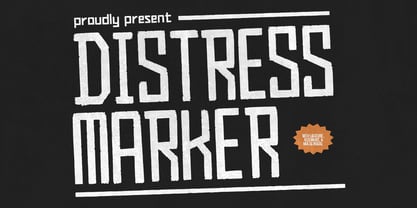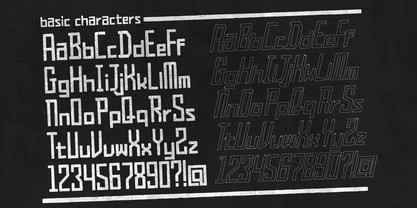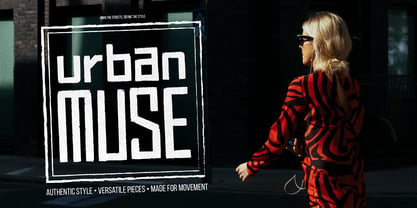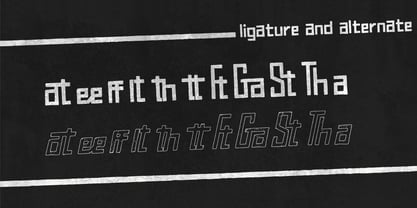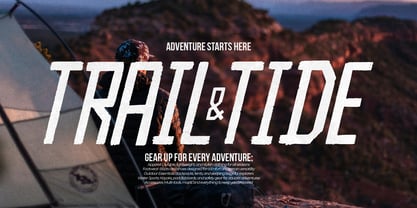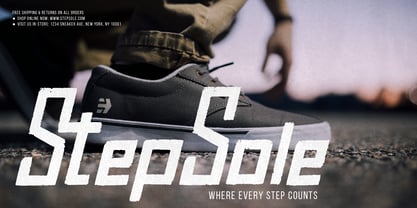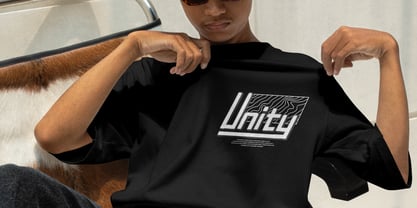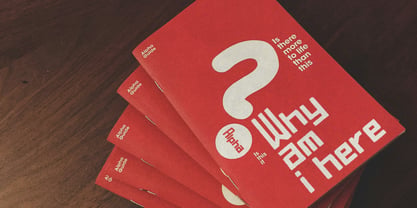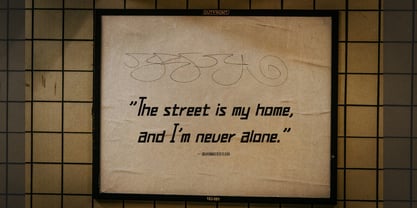
Distress Marker
Distress Marker | Urban Typeface, from Gracetypestudio, suitable for any projects such as: logos, branding projects, homeware designs, product packaging, mugs, quotes, posters, shopping bags, t-shirts, book covers, name card, invitation cards, greeting cards, label, photography, watermark, special events, and all your other lovely projects that need a Urban Typeface taste.
• Regular and Italic
• Standard glyphs
• Alternate and Ligature
• Fonts include multilingual support